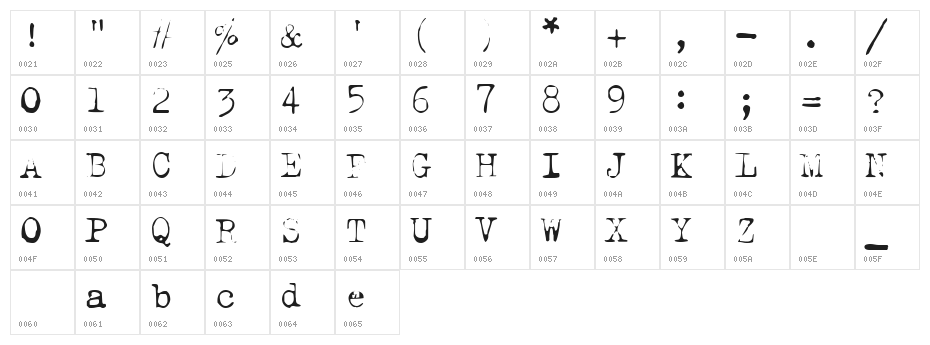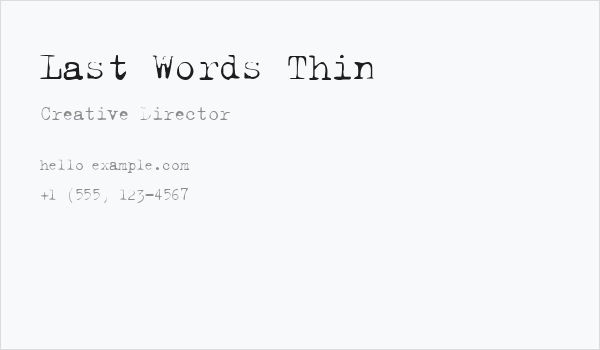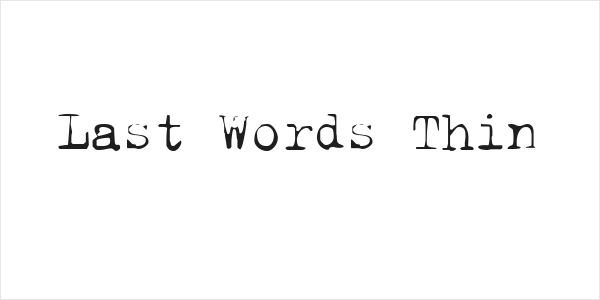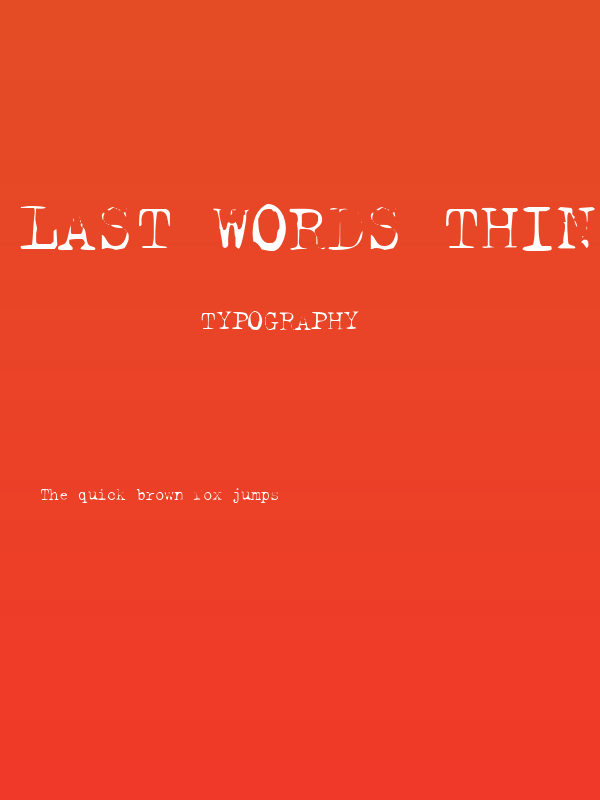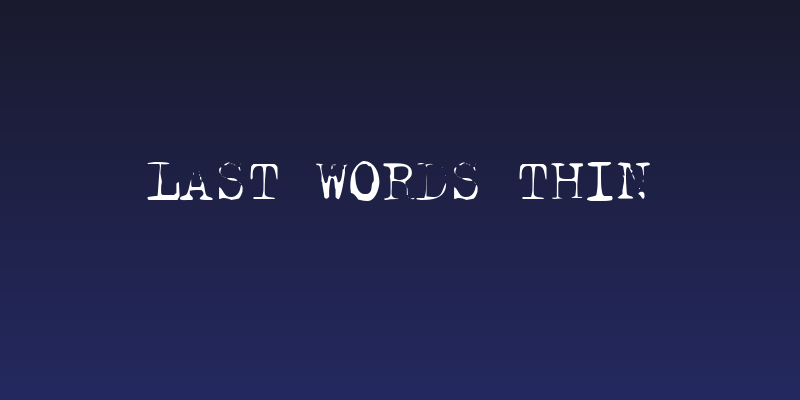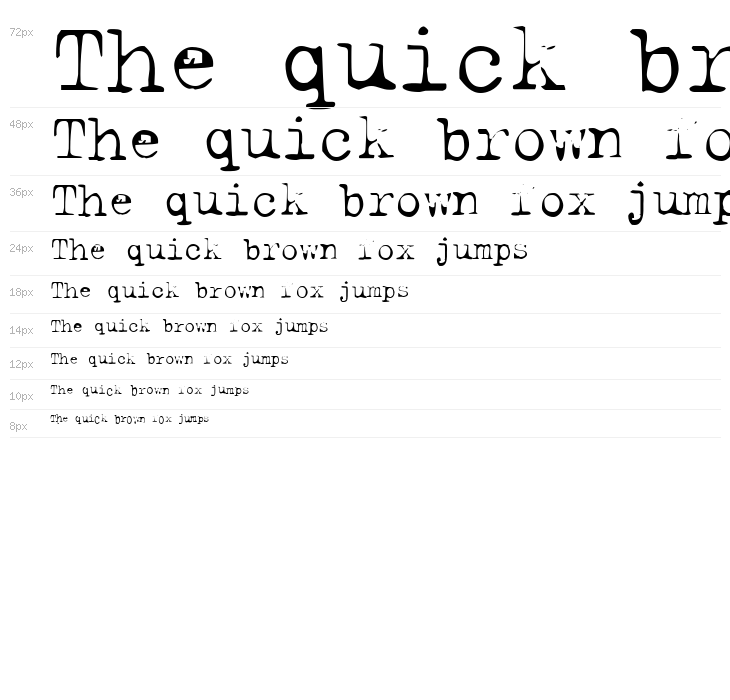
Last Words Thin Font
Last Words Thin Description
This font features a distressed, vintage look with a typewriter-style aesthetic. The characters are slightly irregular, giving them a hand-crafted feel. The uppercase and lowercase letters maintain a consistent style, with rounded edges and subtle variations in line thickness. The numbers and special characters follow the same design, adding to the cohesive appearance. The font's unique texture and worn appearance make it ideal for projects that require a retro or nostalgic touch.
| Proposed Projects | Ideal for vintage-themed posters, retro branding, book covers, and creative design projects that require a nostalgic touch. |